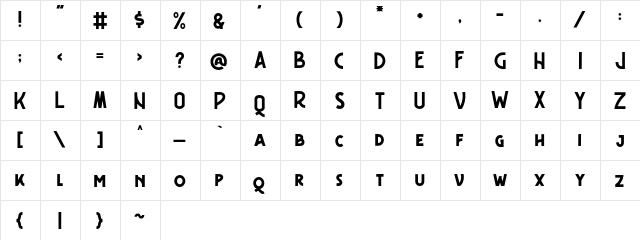
Freudian One Regular
Design Context for Freudian One Typeface
Freudian One offers clean, dependable letterforms without strong stylistic allegiance, making it a practical choice for designers who need flexibility.
Pro Tip: Use Freudian One in both headline and body roles to test its range before committing to a single application.